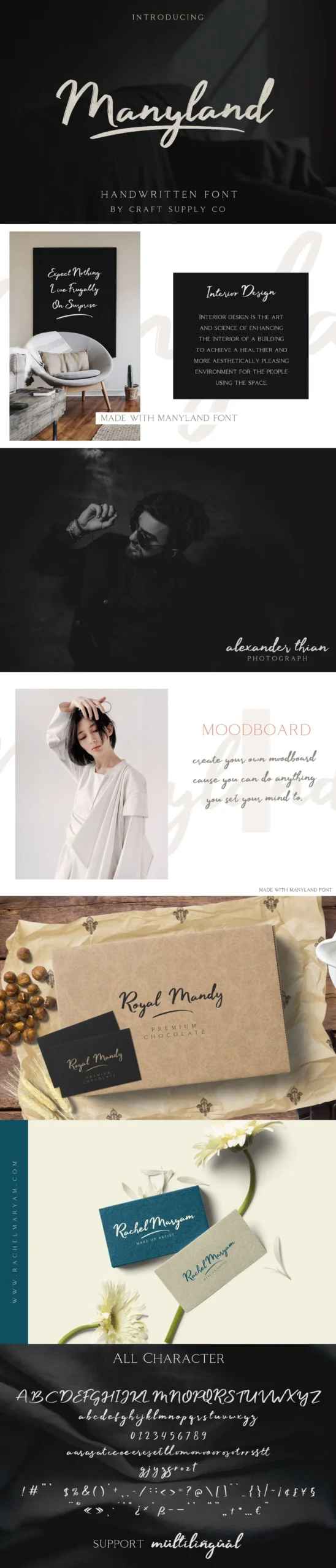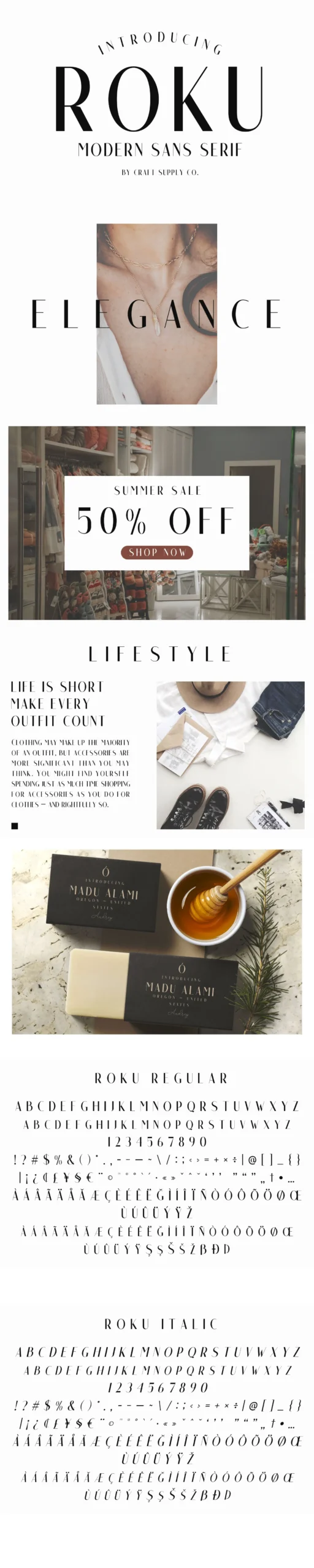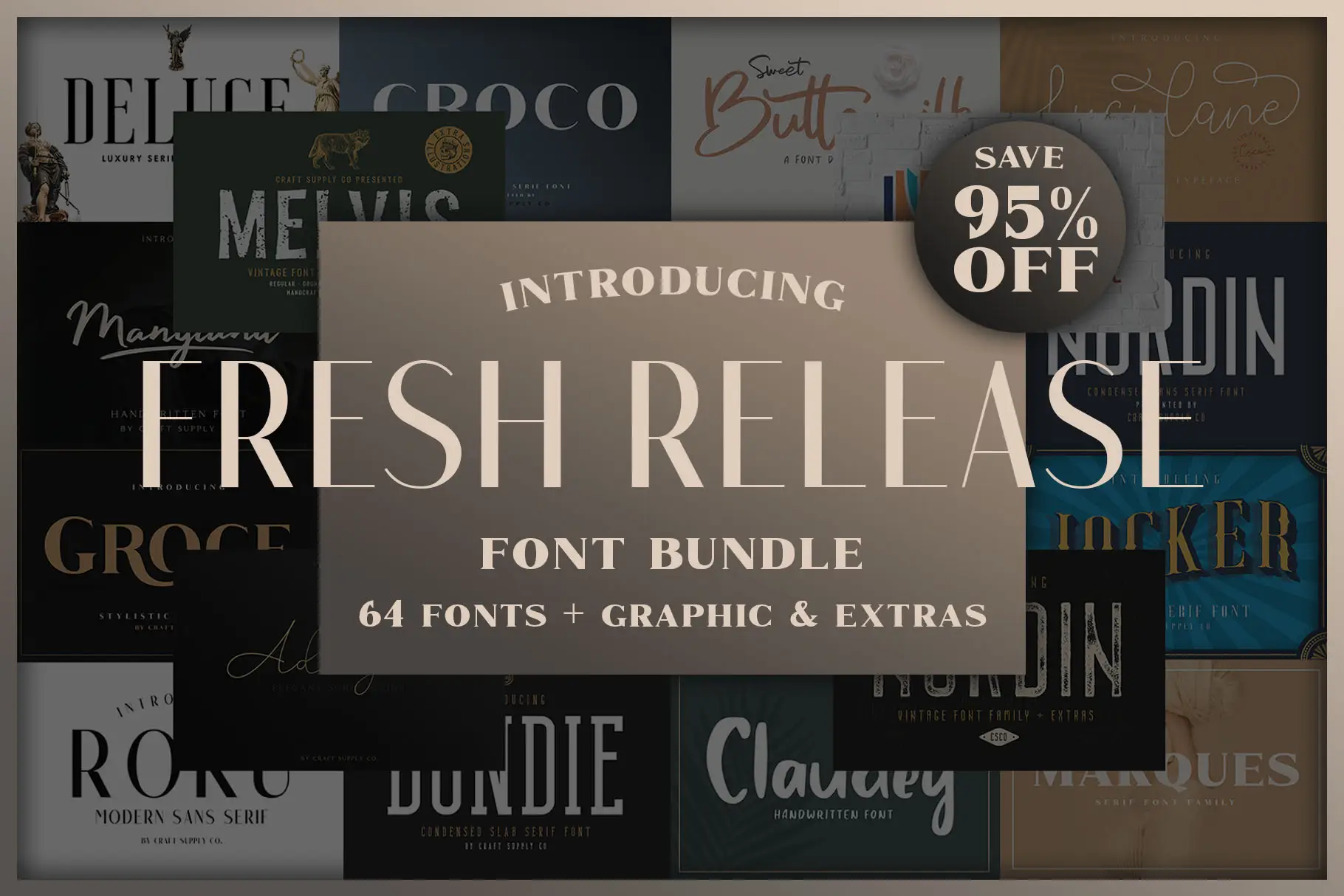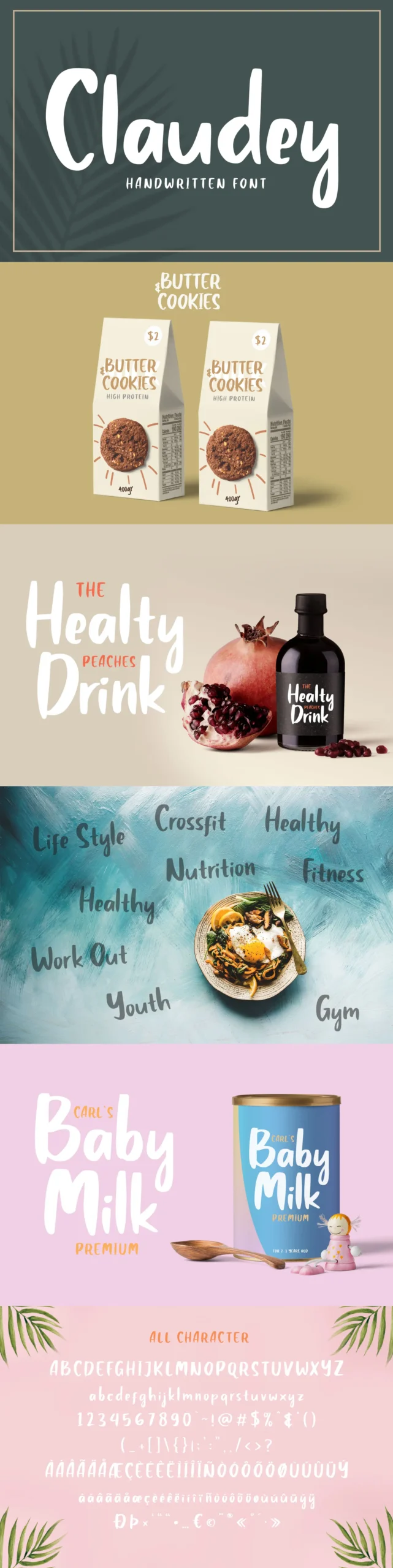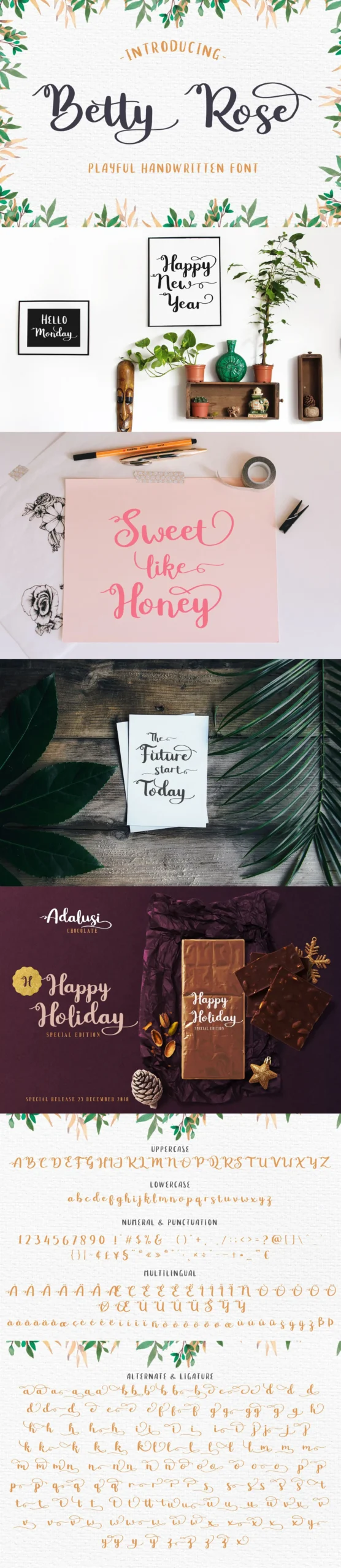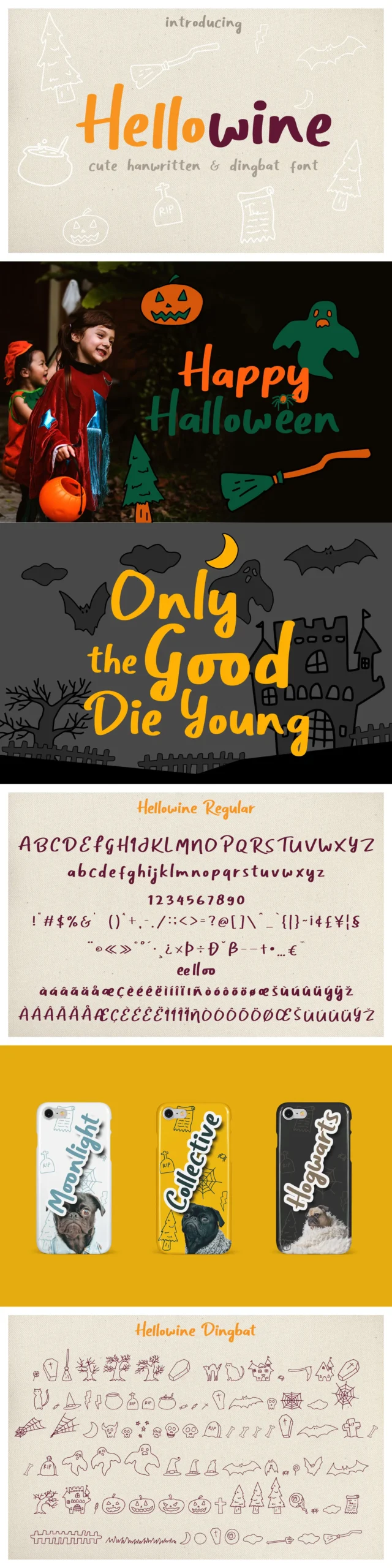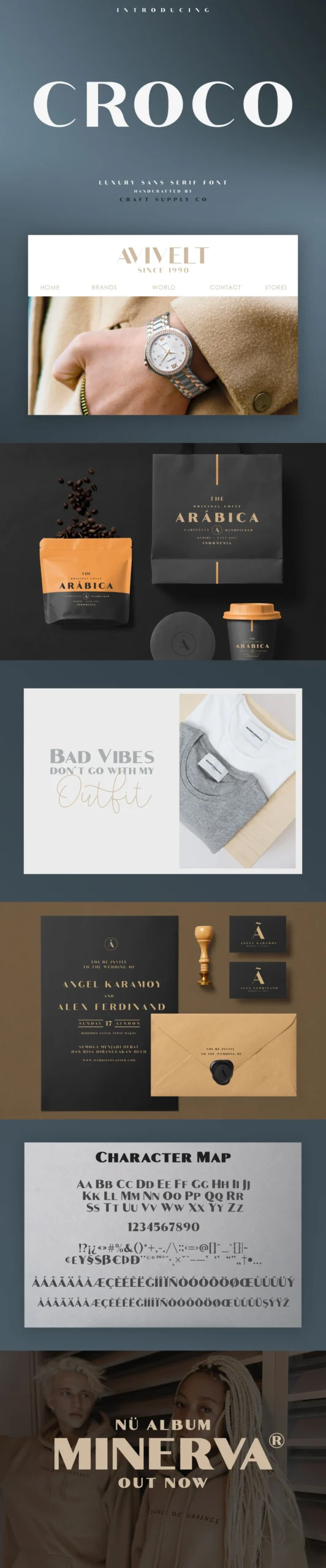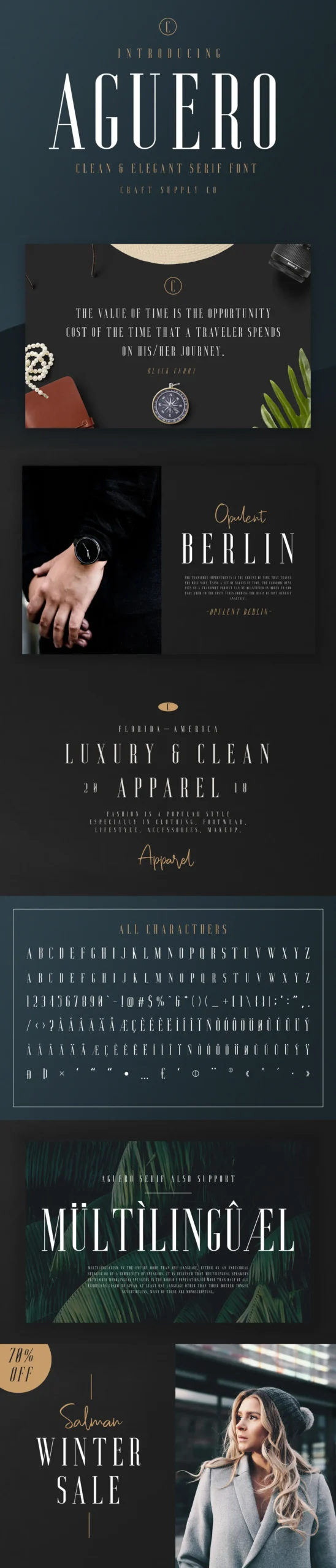
Fresh Release Font Bundle
The Fresh Release Font Bundle features a carefully curated selection of unique and stylish fonts, perfect for a variety of design projects. This bundle includes multiple font styles and weights, allowing for versatility in your creative endeavors.
• Multiple font styles including serif, sans-serif, and script
• Various weights ranging from light to bold
• Easy to read and visually appealing
Each font in this bundle is designed with attention to detail, ensuring high legibility and aesthetic appeal. The combination of styles makes it suitable for branding, logos, web design, print materials, and user interfaces.
• Utilize different weights for emphasis in your designs.
• Combine styles for a unique typographic hierarchy.